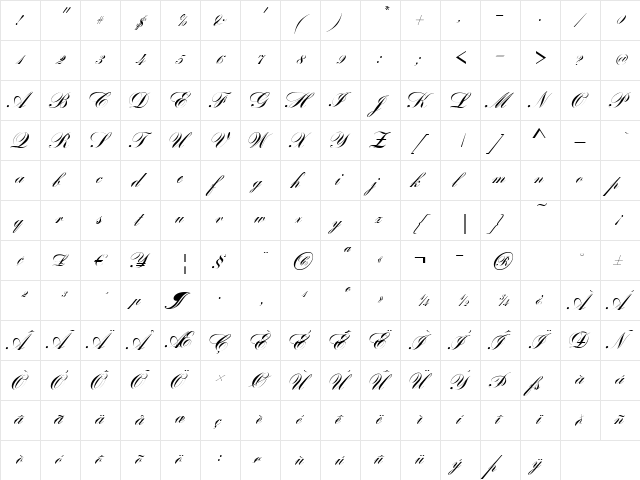
BayScript Regular
Design Context for BayScript Typeface
BayScript flows with the natural rhythm of handwritten lettering, making it ideal for designs that call for warmth and personal expression.
Font Pairing: Combine BayScript with a simple geometric sans for maximum contrast — the tension between flowing curves and clean structure is a classic typographic pairing.
Pro Tip: Use BayScript for short runs of text — names, titles, or taglines. Extended body copy in script faces tires the eye quickly.